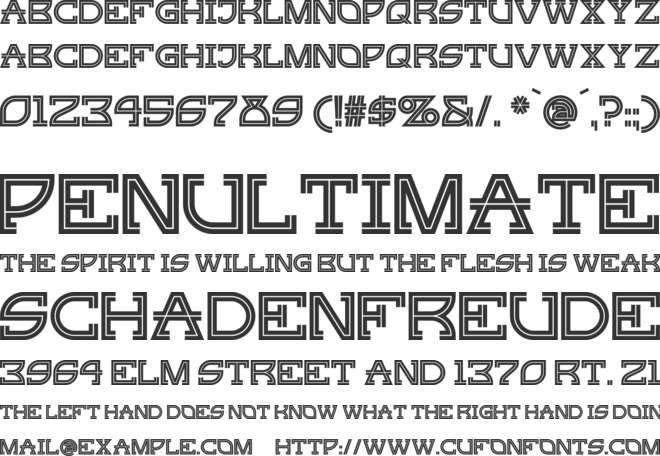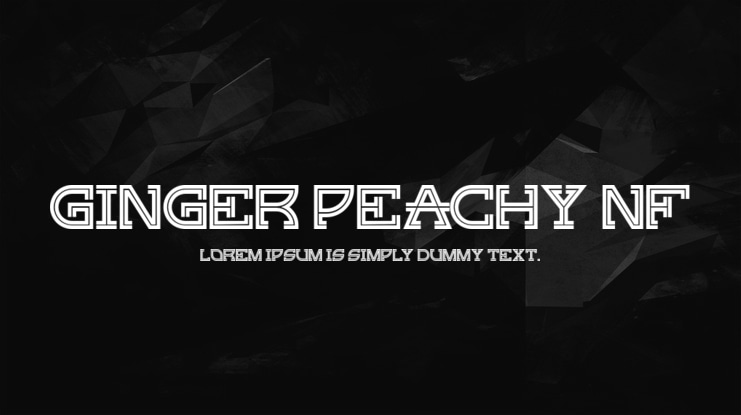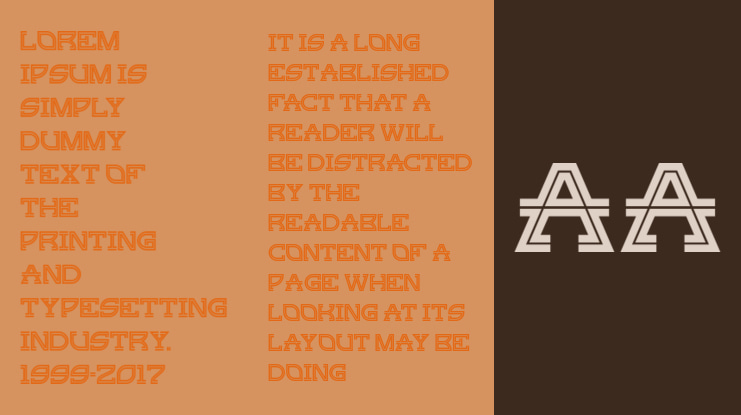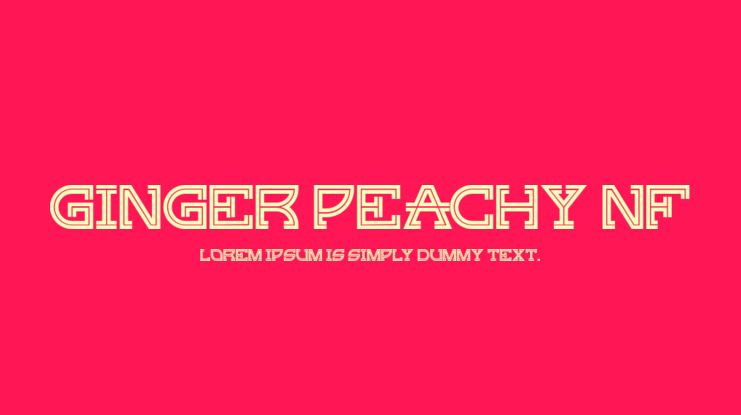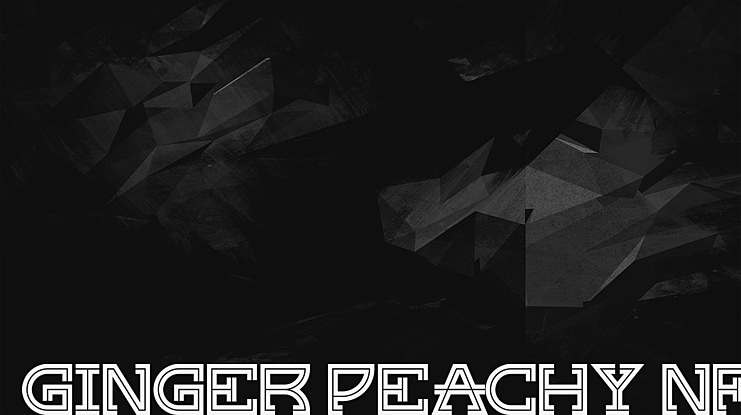
I found the inspiration for this font while surfing the internet. I wish I could credit the original designer, but I took lousy notes that day. Anyhow, what was originally intended to be a futuristic font looked like a deco font to me, especially with the inline treatment I added. With clean lines and a strong architectural feel, Ginger Peachy is suitable for headlines with authority.